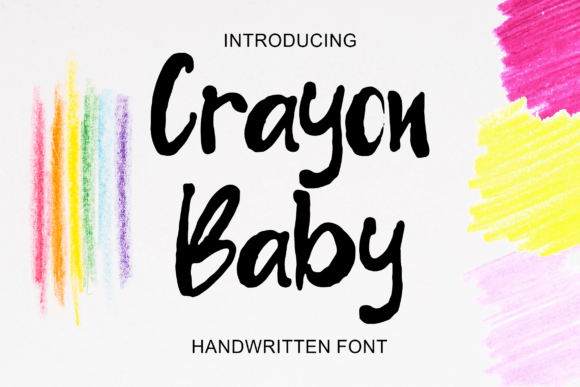
Crayon Baby Font: A Fun and Cute Handwritten Font for All Occasions
Are you looking for a font that can add a touch of fun and cuteness to your designs? Look no further than the Crayon Baby font. This handwritten font has a natural feel that makes it perfect for a wide range of projects, from crafts and digital design to presentations and greeting cards.
What is Crayon Baby Font?
Crayon Baby is a fun and cute handwritten font with a natural feel. It is designed to look like it was written with a crayon, giving it a playful and childlike appearance. The font is perfect for anyone who wants to add a personal touch to their designs.
Features of Crayon Baby Font
The Crayon Baby font has several features that make it a great choice for designers. Some of its key features include:
- Handwritten appearance: The font has a natural, handwritten appearance that gives it a personal touch.
- Playful feel: The font has a playful feel that makes it perfect for designs that are meant to be fun and engaging.
- Natural look: The font looks like it was written with a crayon, giving it a natural and organic appearance.
- Versatile: The font can be used for a wide range of projects, from crafts and digital design to presentations and greeting cards.
Uses of Crayon Baby Font
The Crayon Baby font can be used for a wide range of projects, including:
- Crafts: The font is perfect for craft projects, such as making signs, banners, and other decorative items.
- Digital design: The font can be used for digital design projects, such as creating graphics, logos, and icons.
- Presentations: The font can be used to add a personal touch to presentations, making them more engaging and fun.
- Greeting cards: The font is perfect for making greeting cards, invitations, and other personalized items.
Why Choose Crayon Baby Font?
There are several reasons why you should choose the Crayon Baby font for your designs. Some of the reasons include:
- Unique appearance: The font has a unique appearance that sets it apart from other fonts.
- Easy to read: The font is easy to read, making it perfect for designs that require a lot of text.
- Fun and engaging: The font is fun and engaging, making it perfect for designs that are meant to be playful and creative.
- Versatile: The font can be used for a wide range of projects, making it a great addition to any designer’s toolkit.
Tips for Using Crayon Baby Font
Here are some tips for using the Crayon Baby font:
- Use it for headings: The font is perfect for headings and titles, as it adds a personal touch to your designs.
- Use it for body text: The font is also suitable for body text, as it is easy to read and understand.
- Experiment with colors: The font looks great in a variety of colors, so don’t be afraid to experiment and find the perfect color for your design.
- Combine it with other fonts: The font can be combined with other fonts to create a unique and interesting design.
In conclusion, the Crayon Baby font is a fun and cute handwritten font with a natural feel. It is perfect for a wide range of projects, from crafts and digital design to presentations and greeting cards. The font has a unique appearance, is easy to read, and is fun and engaging. It is also versatile and can be used for a wide range of projects. With these tips and guidelines, you can use the Crayon Baby font to create amazing designs that will impress your audience.
- What is the Crayon Baby font?: The Crayon Baby font is a fun and cute handwritten font with a natural feel.
- What is the Crayon Baby font used for?: The font can be used for a wide range of projects, including crafts, digital design, presentations, and greeting cards.
- Is the Crayon Baby font easy to read?: Yes, the font is easy to read, making it perfect for designs that require a lot of text.